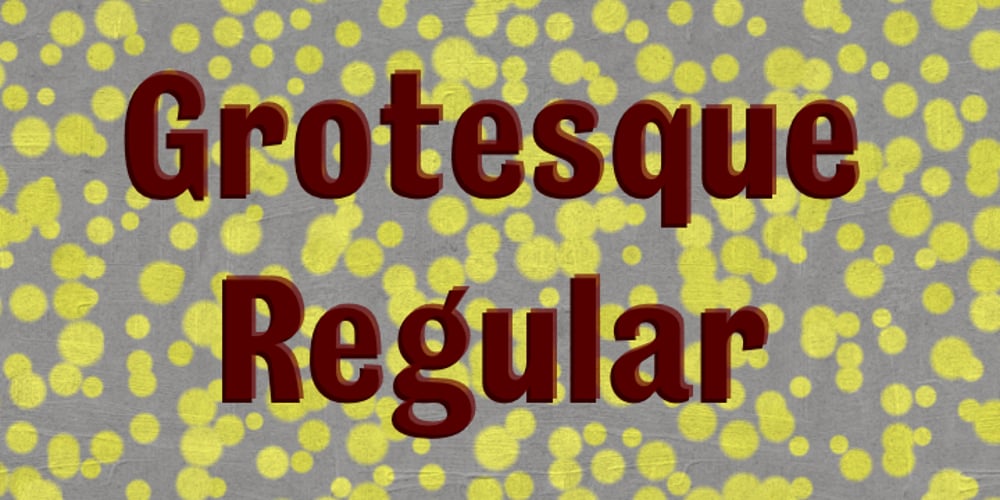
Grotesque Font Family was designed by Jordan Davies, William Thorowgood and published by Wooden Type Fonts. Grotesque contains 5 styles and family package options. Based on a revival of one of the popular type fonts of the 19th century, suitable for display, or text, bold.